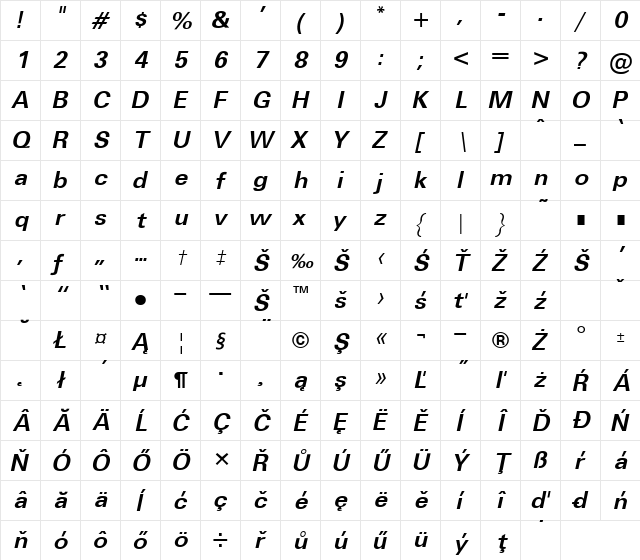
UnvEe Bold Italic
Design Context for UnvEe Typeface
UnvEe offers clean, dependable letterforms without strong stylistic allegiance, making it a practical choice for designers who need flexibility. The slanted form adds forward momentum and visual energy. The heavy weight commands attention and anchors typographic hierarchies.